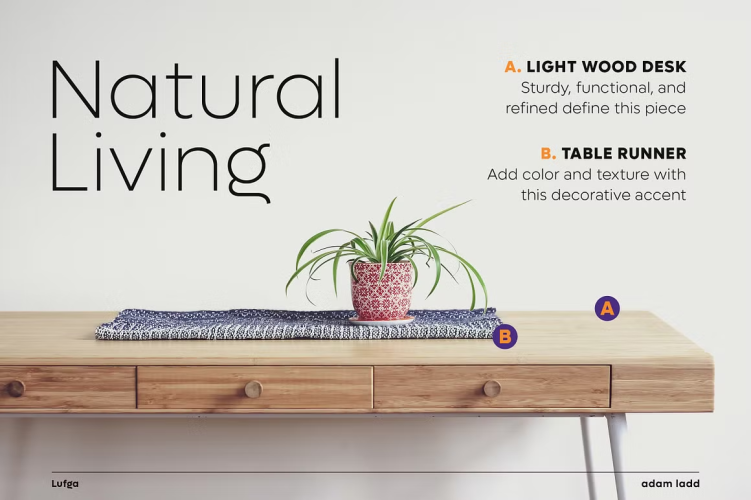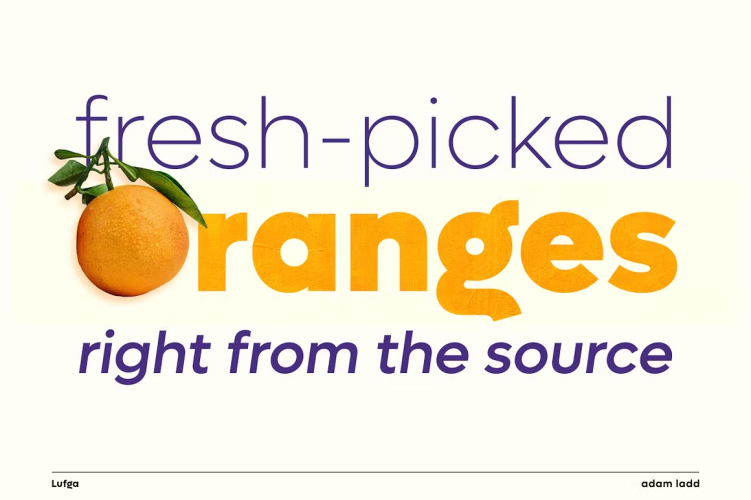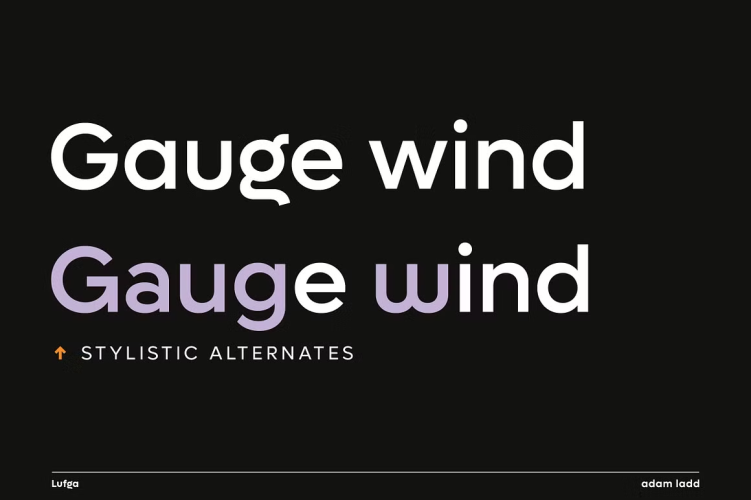
Lufga Font
Lufga is a geometric sans serif font family with unique characters for a touch of distinction. Simple yet sophisticated, this typeface design gives a clean and modern appearance while carrying almost retro tones. Most notably, the lowercase g and u make it recognizable for your branding applications, and there are also stylistic alternates to help give a slightly different presentation when needed.
With a minimal design, low contrast, large x-height, and thin through black weights (with italics), Lufga is well-suited as a workhorse text and display font for branding, advertising, packaging, headlines, magazines, websites, logo designs, and more.
With over 600 glyphs, this font has extensive multilingual Latin language support (100+ languages) for Western, Central, and South Eastern European.
Where Lufga Font works best
Lufga Font keeps its shape at 14 and 16 pixels, which is where interface text actually lives. Numbers and capitals stay distinguishable in tables.
Presentations are read at a distance; a clean sans with a strong bold is the safest hierarchy you can build in a hurry.
Simple letterforms survive angles, glare and movement, so Lufga Font suits door signs, menus boards and exhibition panels.
What kind of work does Lufga Font suit?
It sits in the Sans Serif Fonts group and reads as display, geometric, modern, retro. That makes it a candidate wherever those qualities help: headings, packaging, social graphics and brand work. Set it at the size you plan to use before deciding.